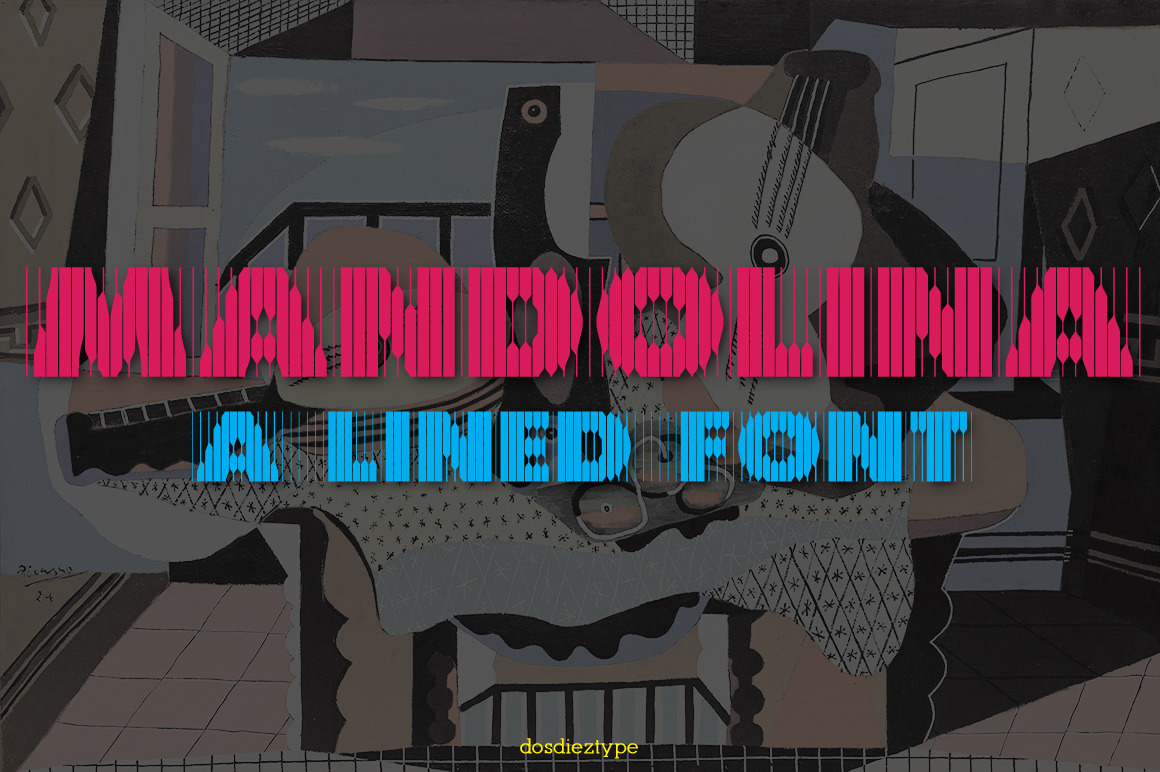
Mandolina Lined Font
Mandolina is an all capitals display font with a complete accented letters used in Western Europe (Latin 1). Some accented letters used in Eastern Europe are also included in the font. The characters in the font are not all shown in the preview images but you will have a very good idea on what is on the font based on the previews. Mandolina has 247 glyphs and is available in both OpenType (OTF) and TrueType (TTF).
Your default operating system font viewer might not likely give justice to the font because of the hairlines. It is suggested that you install the font and view it on the program of your choice. The font is best used in high resolutions and/or large font size. The font previews were created in Illustrator using the OpenType version of the font at 100 points at the very least.